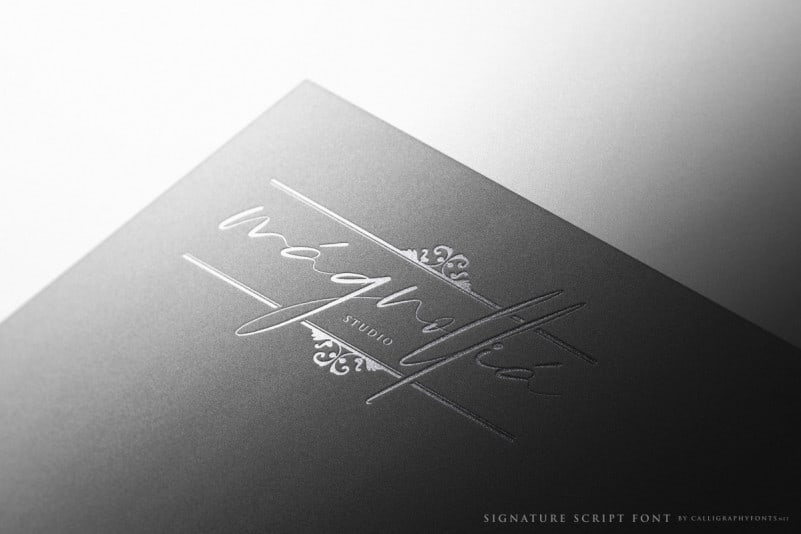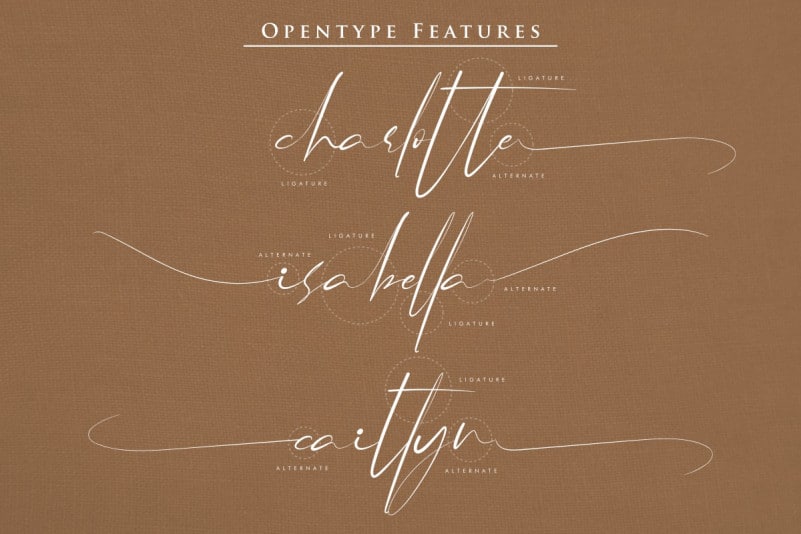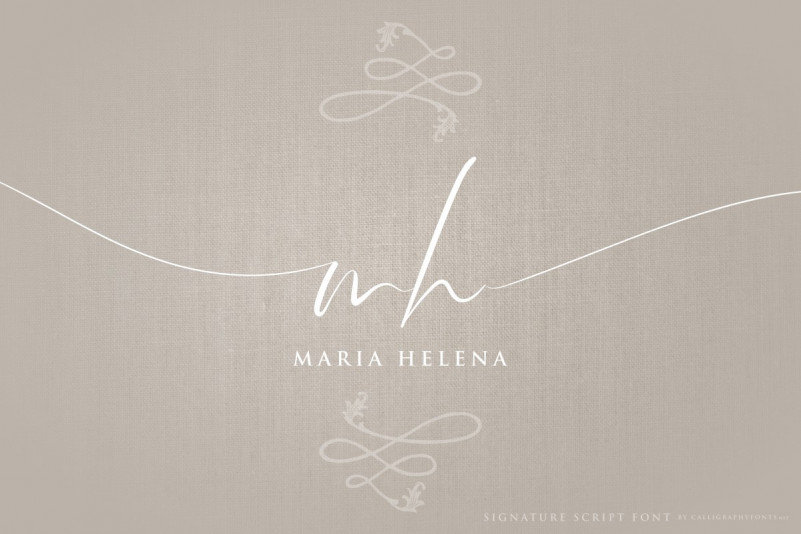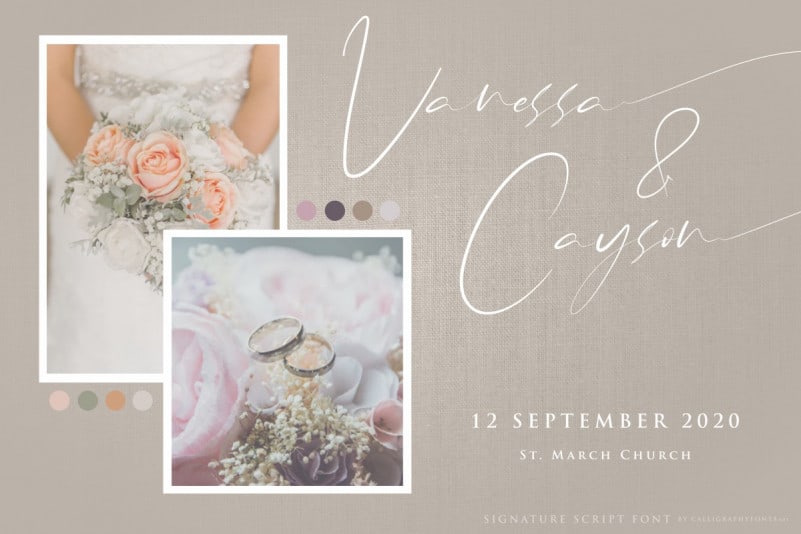
Ballerinas Calligraphy Font
Ballerinas Calligraphy Font is a signature script typeface. The style of this font are simple, classic, luxury, glamour, exclusive and elegant handwritten pen.